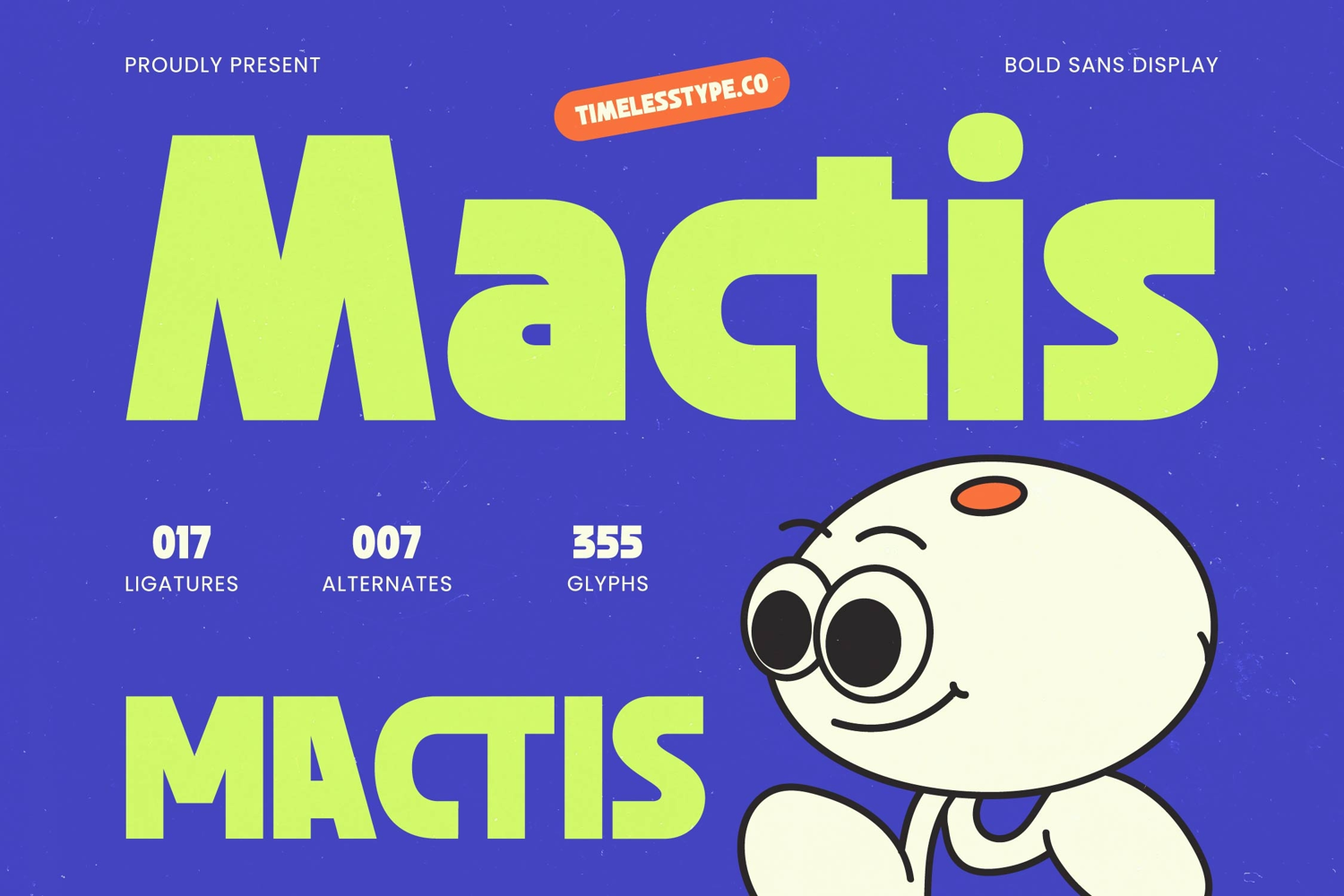
Mactis - Bold Sans Display Font
Mactis
Mactis Italic
Mactis - Bold Sans Display Font, the ultimate headline typeface built for maximum impact and immediate recognition. This is a display font characterized by its extremely heavy stroke contrast, rounded terminals, and tight, intentional kerning, positioning it perfectly for projects that require a loud, yet highly refined voice. Its sturdy, monolithic presence ensures your message is not just seen, but immediately felt across any medium.